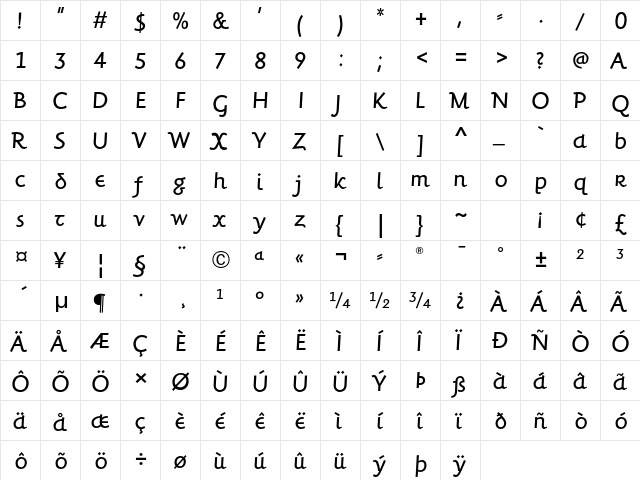
Forkbeard ITC Std Regular
| Designer | Micheal Gills |
Design Context for Forkbeard ITC Std Typeface
Forkbeard ITC Std is a composed and adaptable typeface that performs quietly and consistently across a wide range of design contexts.
First published in 1998, this typeface is available in OpenType (OTF) format.